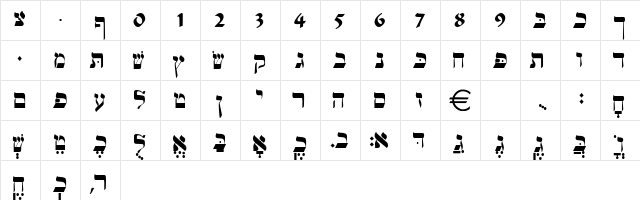
Israel Normal
Design Context for Israel Typeface
Israel takes a measured approach to typography — its balanced proportions and neutral character make it a reliable workhorse for both digital and print work.